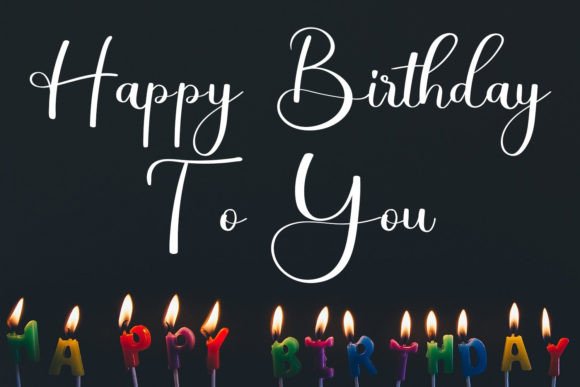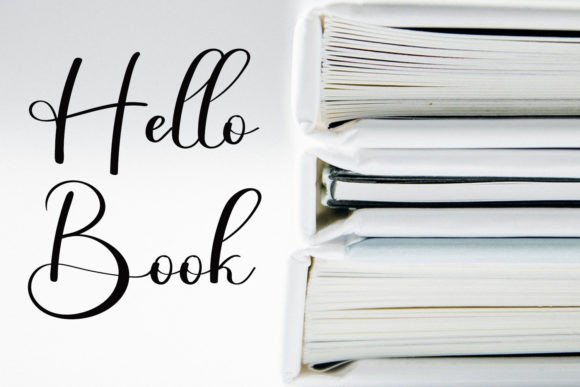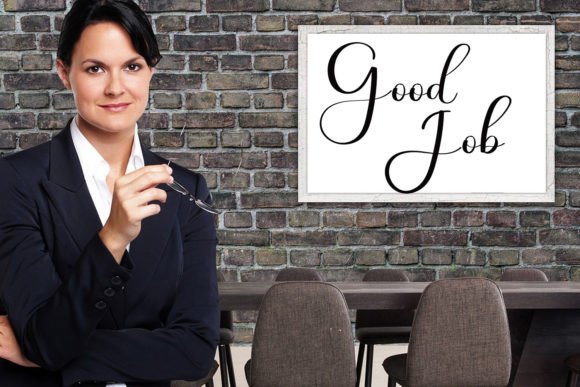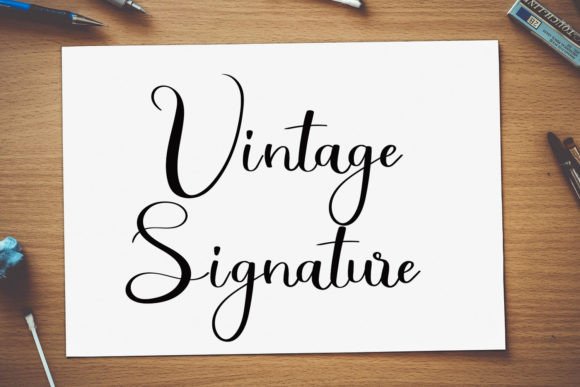
Introducing Birthday Font: The Perfect Addition to Your Design Arsenal
Are you tired of using the same old fonts for your designs? Look no further! Birthday Font is a modern handwritten typeface that’s sure to elevate your creations to the next level. In this article, we’ll dive into the world of Birthday Font, exploring its features, uses, and benefits for designers and crafters alike.
What is Birthday Font?
Birthday Font is a beautiful, modern handwritten typeface that’s perfect for adding a personal touch to your designs. Its unique, cursive style is both elegant and playful, making it ideal for a wide range of applications. Whether you’re creating banners, quotes, branding, logos, cards, or invitations, Birthday Font is the perfect choice.
- Modern Handwritten Style: Birthday Font boasts a fresh, modern look that’s sure to capture attention.
- Versatile: Use it for various design projects, from digital graphics to print materials.
- Elegant and Playful: The font’s cursive style strikes the perfect balance between sophistication and whimsy.
- Easy to Read: Despite its decorative nature, Birthday Font remains clear and legible, even at smaller sizes.
Uses for Birthday Font
The possibilities are endless with Birthday Font! Here are some ideas to get you started:
- Banners: Create eye-catching banners for parties, events, or promotions.
- Quotes and Sayings: Add a touch of personality to inspirational quotes, lyrics, or phrases.
- Branding and Logos: Use Birthday Font to create unique, memorable logos or brand identities.
- Cards and Invitations: Design beautiful greeting cards, invitations, or thank-you notes.
- Social Media Graphics: Elevate your social media presence with custom graphics featuring Birthday Font.
So, what sets Birthday Font apart from other typefaces? Here are some benefits for designers and crafters:
- Time-Saving: With Birthday Font, you can create stunning designs in no time.
- Unique Look: Stand out from the crowd with a font that’s both modern and distinctive.
- High-Quality: Enjoy crisp, clear text that’s perfect for both digital and print applications.
Tips for Using Birthday Font
To get the most out of Birthday Font, keep the following tips in mind:
- Experiment with Sizes and Colors: Play around with different font sizes and colors to find the perfect combination for your design.
- Mix and Match: Combine Birthday Font with other typefaces or graphics to create a unique look.
- Keep it Simple: Don’t overcomplicate your design – let Birthday Font’s elegance shine through.
In conclusion, Birthday Font is a versatile, modern handwritten typeface that’s perfect for designers and crafters looking to add a personal touch to their creations. With its elegant and playful style, it’s ideal for a wide range of applications, from banners and quotes to branding and logos. So why wait? Add Birthday Font to your design arsenal today and enjoy the results!